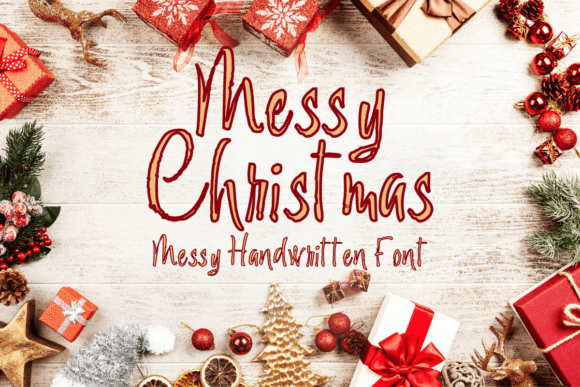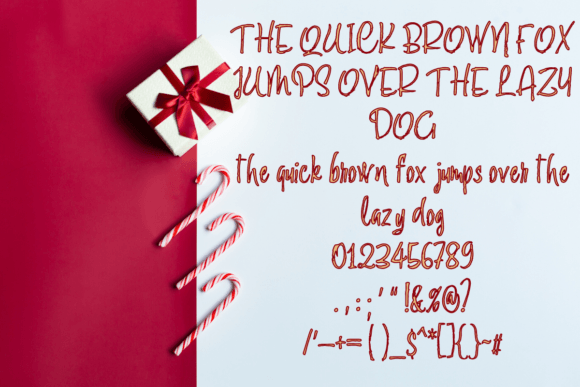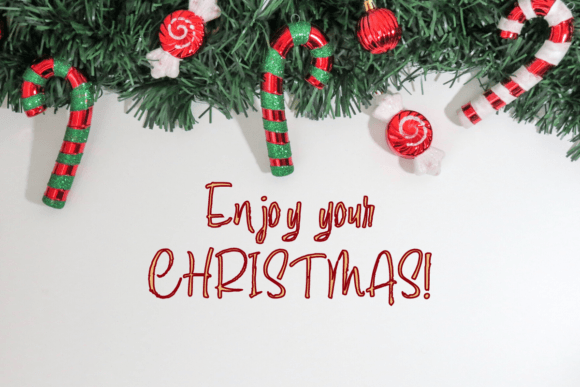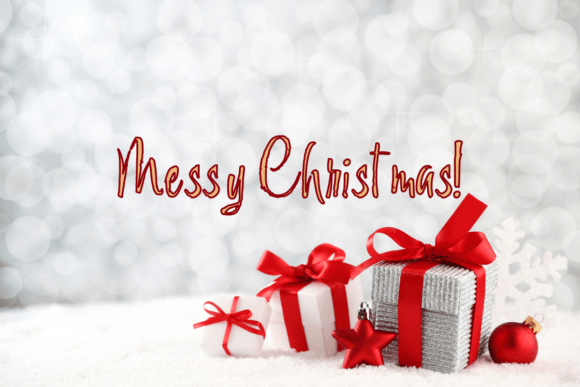
About Messy Christmas Font
Messy Christmas font is a quirky and fun handwritten typeface designed to bring a playful and informal vibe to your holiday projects. Its messy, friendly, and childish style makes it an excellent choice for a wide variety of creative designs. When you download Messy Christmasfont, you get a unique and lively font that adds personality and charm to your work.
Why Download Messy Christmas Font?
By downloading Messy Christmasfont, you gain access to a font that’s both playful and versatile. Its informal nature is perfect for projects where you want to evoke warmth, joy, and festive spirit. This font stands out in social media posts, invitations, holiday cards, and apparel like t-shirts or mugs.
A Messy and Friendly Style
The quirky handwriting style of Messy Christmasfont makes every letter feel like a spontaneous, joyful expression. The childlike charm brings a sense of fun and authenticity that can brighten up seasonal designs. This font perfectly captures the messy, carefree spirit of the holiday season.
Perfect for Various Festive Designs
Whether you’re creating invitations, social media graphics, posters, or holiday merchandise, Messy Christmasfont delivers a lively and festive look. Its readability combined with its messy design makes it both practical and decorative. Download Messy Christmasfont to add a whimsical touch to your Christmas and winter projects.